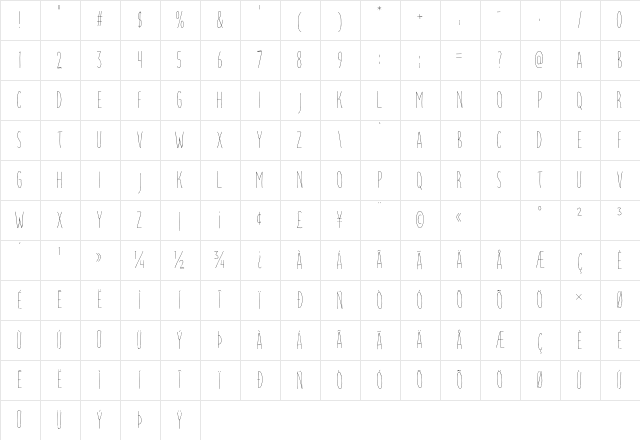
Parsley Path Thin is a composed and adaptable typeface that performs quietly and consistently across a wide range of design contexts. Its slender proportions lend an understated elegance to any composition.